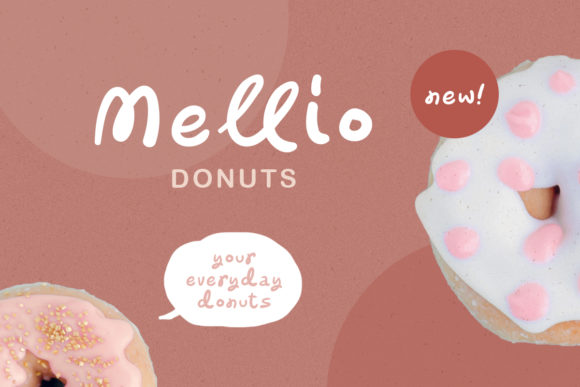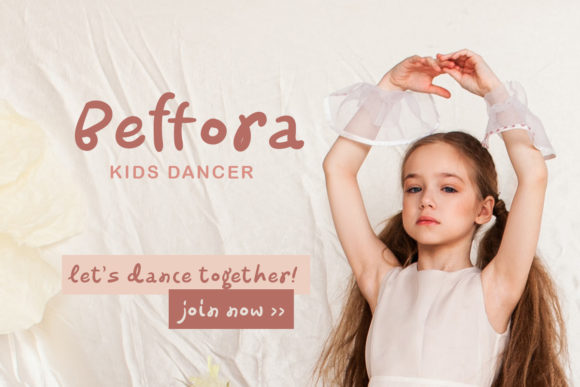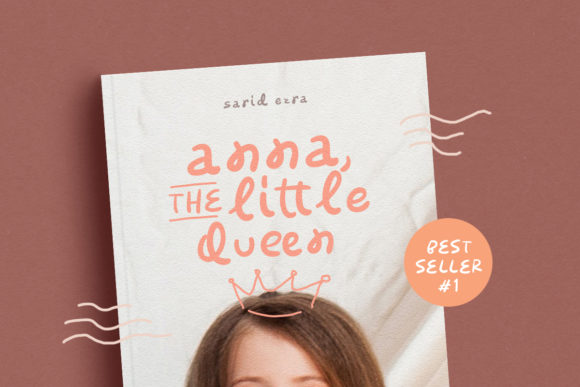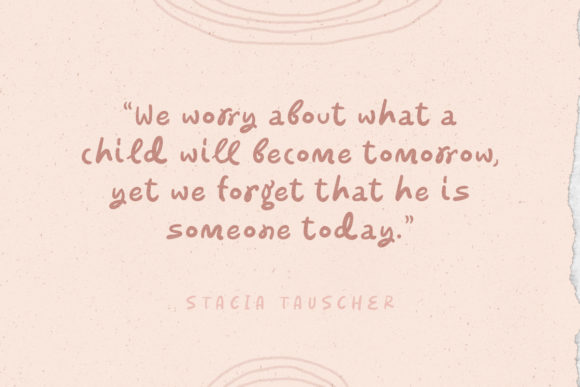
About Sierra Moon Font
Sierra Moon is a quirky handwritten font that will make your designs more cheerful! You can use this font for your brand, your cover book, kids event, or even quotes. This font also includes double ligatures that will make it more handy. This font also supports multilingual.